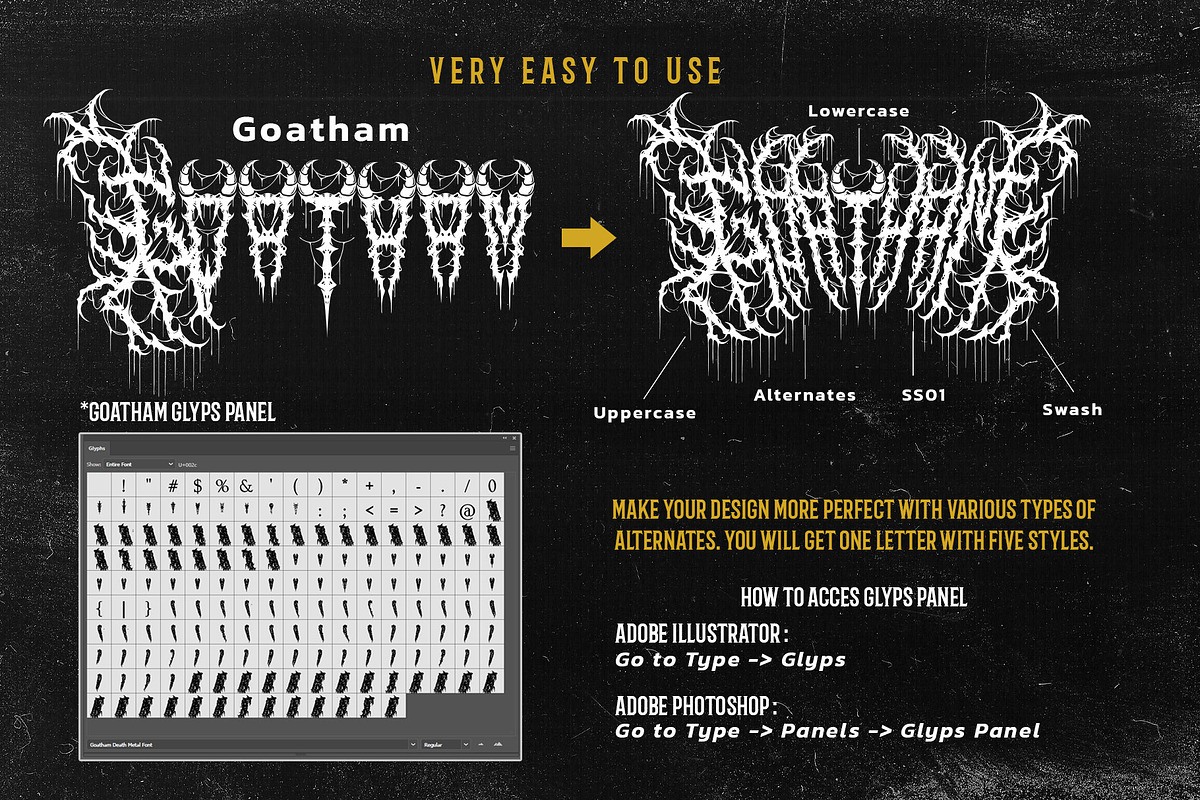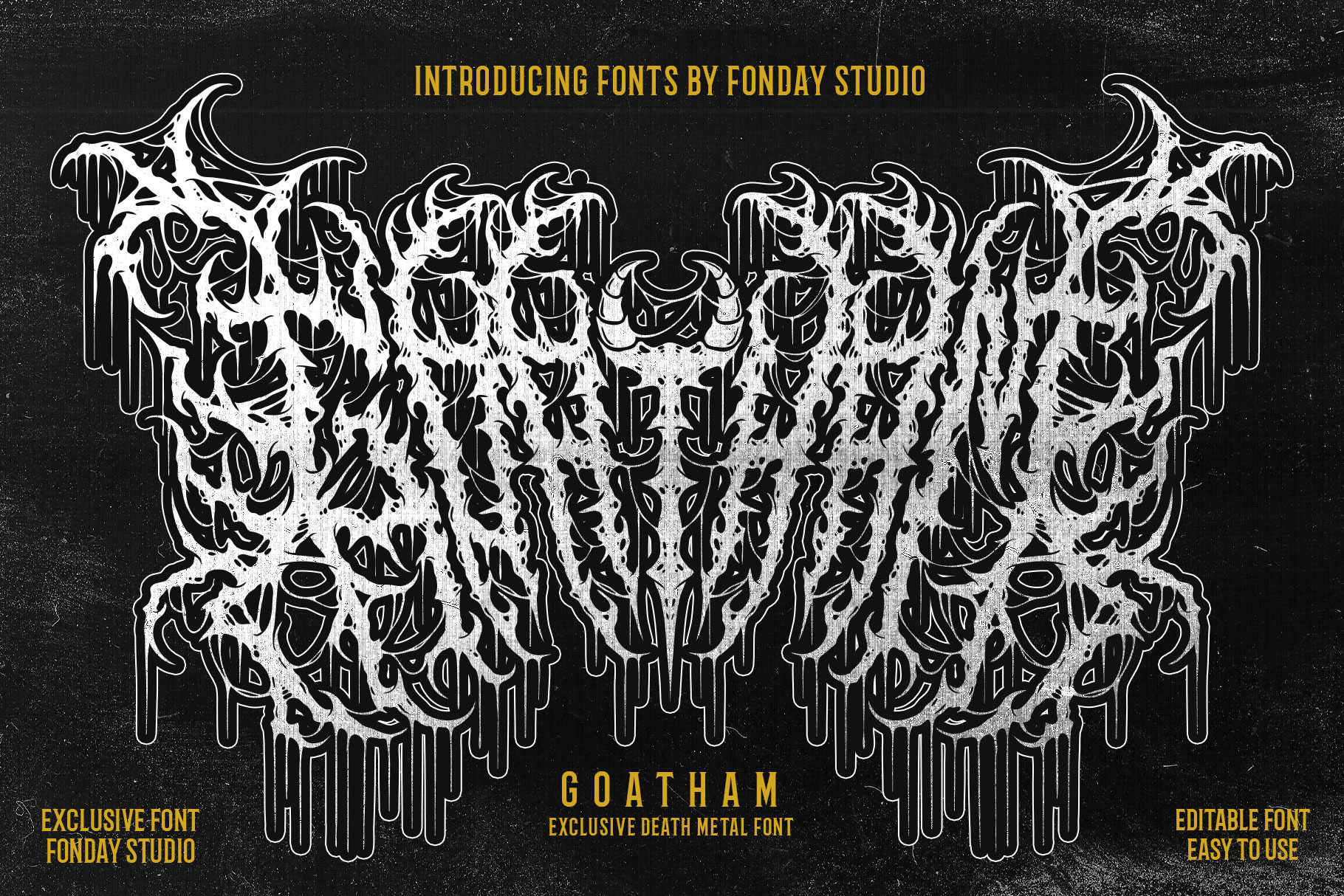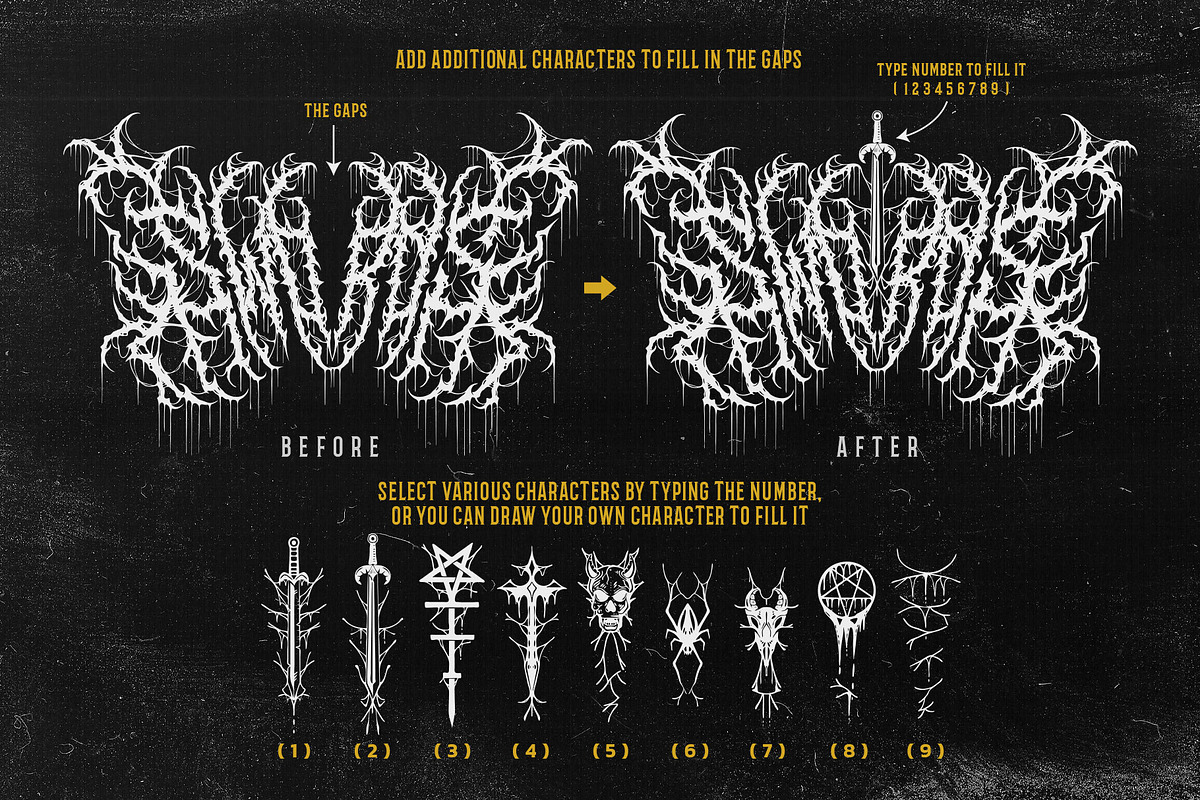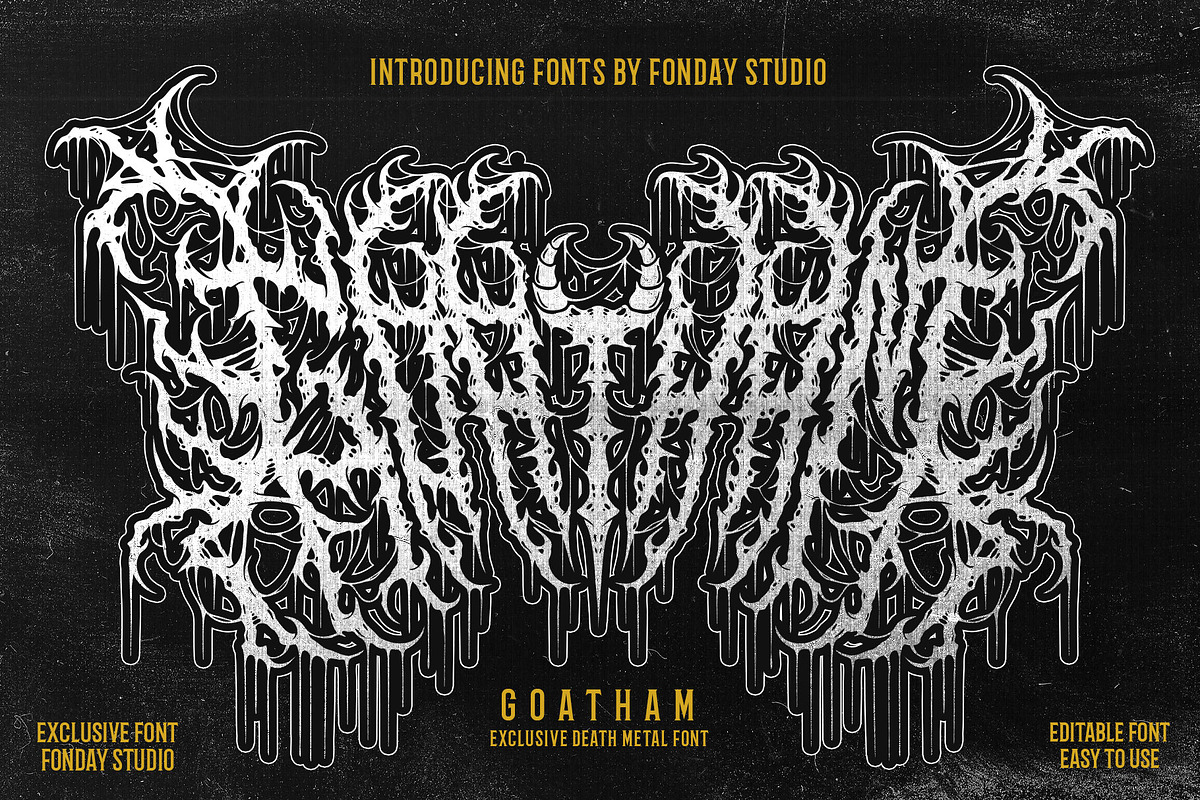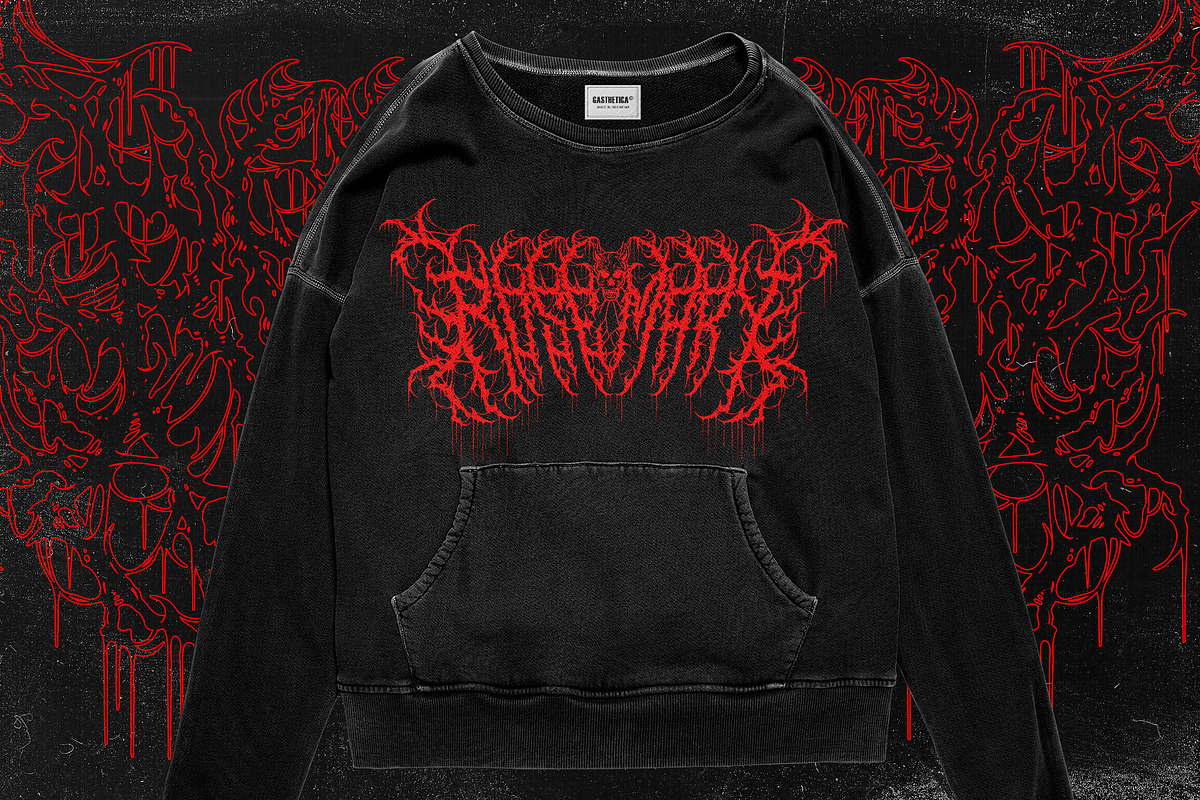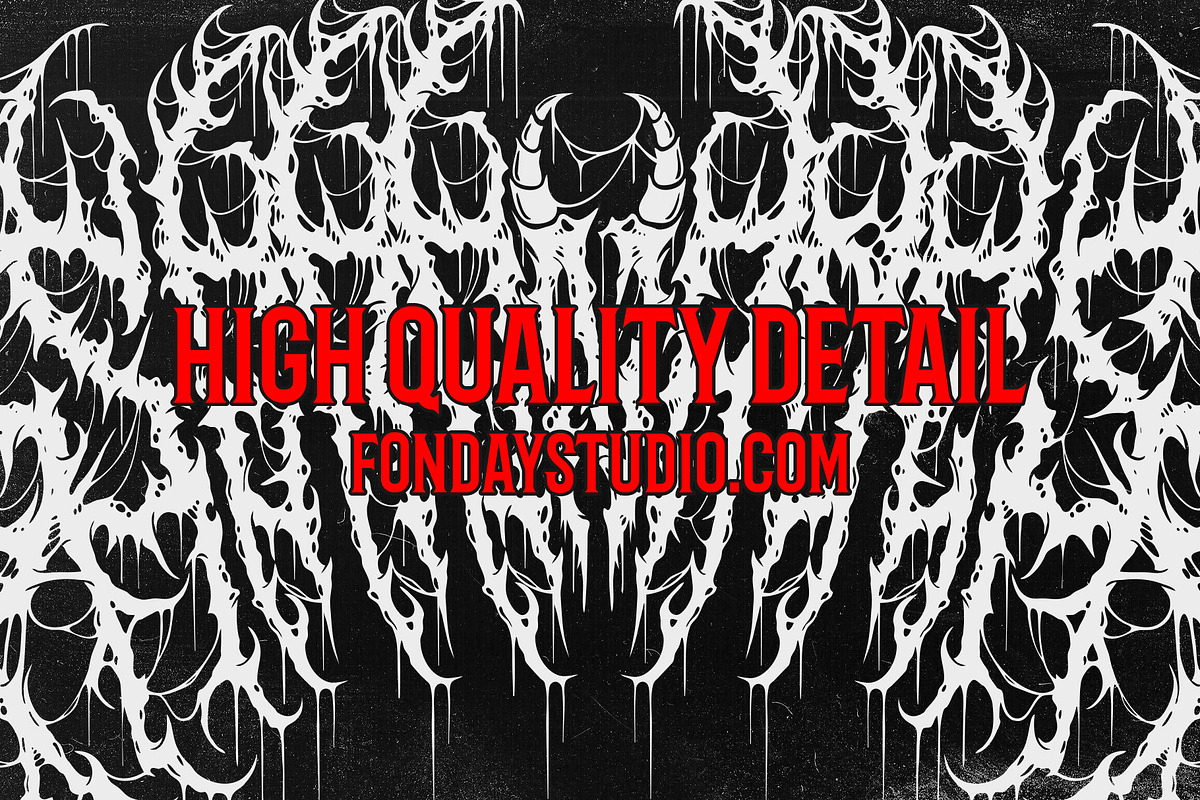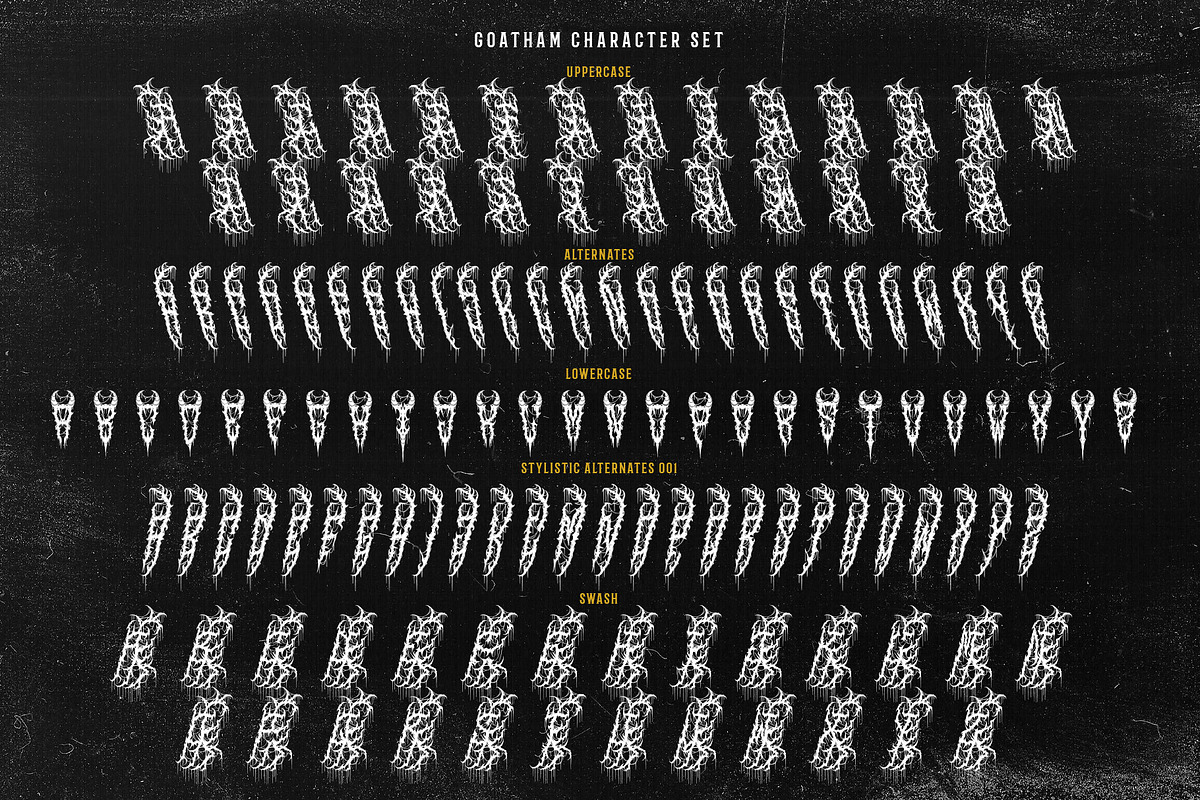
GOATHAM DEATH METAL FONT
🤘 Introducing Goatham Death Metal Font: Unleash the Darkness of the Goat in Every Design! 🤘
Prepare to summon the sinister power of the goat with the meticulously crafted "Goatham Death Metal Font." This is not just any font; it's a masterpiece of detail, quality, and exclusivity.
🔥 Precision in Darkness: Every curve, every line in Goatham is finely honed to radiate the raw energy and sharpness of the metal genre. This font is the epitome of high-quality design.
🤘 Limitless Alternates: Dive into a trove of alternate characters, giving your designs a unique and menacing edge that can only come from the depths of darkness.
✏️ Effortless Customization: Goatham makes it easy. Whether it's posters, logos, t-shirt brands, or album covers, you'll find it a breeze to modify and create with this font.
🖤 Versatile for All Metal Themes: From death metal to black metal and more, Goatham seamlessly adapts to any metal theme, infusing your designs with dark and demonic flair.
🔒 An Exclusive Experience: This font is not just a font; it's your exclusive key to unlock the darkest realms of metal design.
🔥 Summon the Goat: Embrace the darkness and invoke the spirit of the goat with Goatham Death Metal Font.
- All Caps Character
- Stylistic Alternate